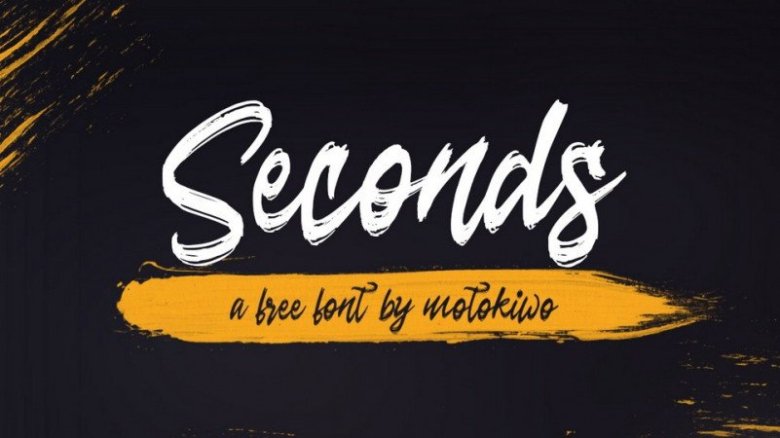
Seconds Brush Font Free
Seconds Brush Font is entirely handmade brush font. A rough with brushy imperfections and an earthy realism. It’s designed and shared by Motokiwo. This font a free rough brush handwritten font designed in casual style. It contains upperacse annd lowercase letters, numbers, symbols, supports multilanguge. Great for posters, headlines, apparel, social media and more.